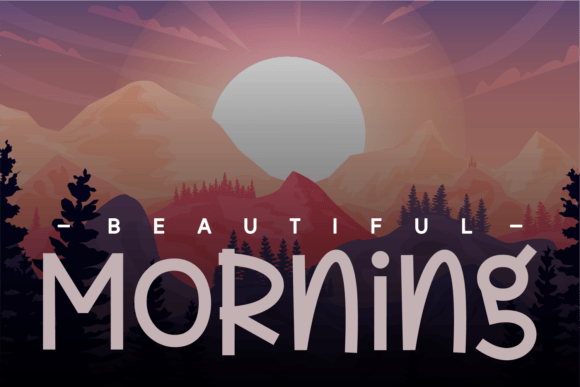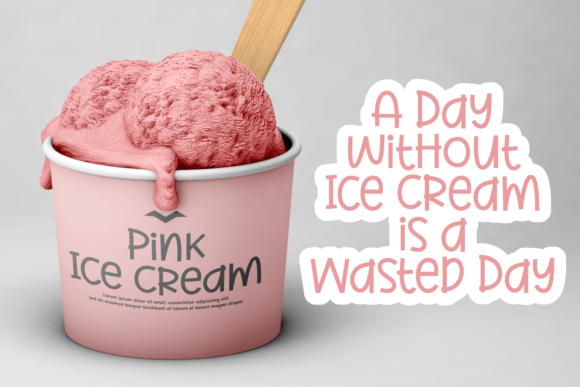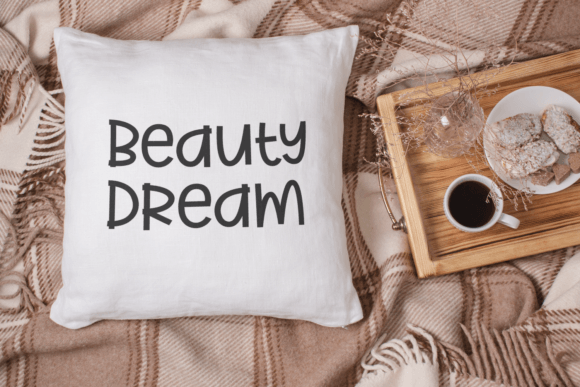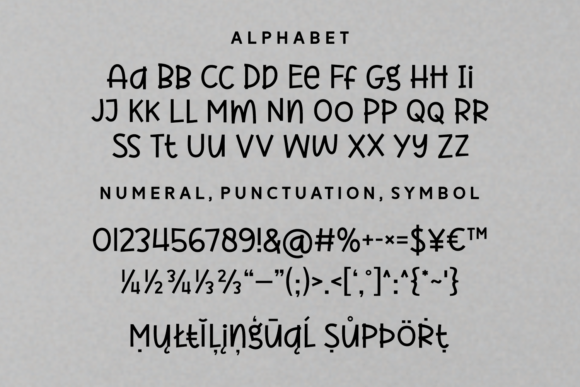
Introduction to Give You Strength Font
Have you ever stared at a blank canvas, trying to find the perfect words to bring your creative vision to life? We’ve all been there – the blank page staring back, a daunting challenge waiting to be conquered. But what if you had the perfect tool to unlock your creativity and give your design the edge it needs? Enter the Give You Strength Font, a charming and unique handwritten font that’s about to become your new go-to design resource.
Key Features of Give You Strength Font
- Unique, motivational design ideal for creative projects, with a bold and uplifting aesthetic.
- Features a transparent background, allowing for easy layering and customization in design projects.
- Designed with a large x-height and bold lines, making it easily readable at various resolutions and sizes.
- Resolution-independent, ensuring crisp and clear text rendering regardless of the display resolution.
- Perfect for use in posters, social media graphics, and other visual design elements where motivation and inspiration are key.
Honest Review: Give You Strength Font
As a designer, I’m always on the lookout for high-quality design resources to enhance my creative projects. Recently, I came across the Give You Strength Font, and I must say, it’s been a game-changer for my latest designs.
What works well: ✨ The font is incredibly versatile and can be used for a variety of design projects, from posters to social media graphics. The transparent background makes it easy to use on any background, and the high-quality design ensures that it looks great at any size.
Some of my favorite features of the Give You Strength Font include:
- High-quality design that looks great at any size
- Transparent background for easy use on any background
- Wide range of design applications, from posters to social media graphics
One limitation of the font is that it may not be suitable for all design projects. ⚠️ For example, it may not be the best choice for projects that require a lot of text, as the font can become overwhelming when used extensively.
Overall impression: I’m thoroughly impressed with the Give You Strength Font. Its high-quality design, versatility, and ease of use make it a valuable addition to any designer’s toolkit. Whether you’re working on a free download design project or a paid client, this font is definitely worth considering.
To get the most out of the Give You Strength Font, experiment with different font sizes and styles. Use it in combination with other design elements to create visually appealing graphics. Don’t be afraid to push the limits of the font and try new things.
The Give You Strength Font is perfect for a variety of creative projects, including:
- Logos
- Brochures